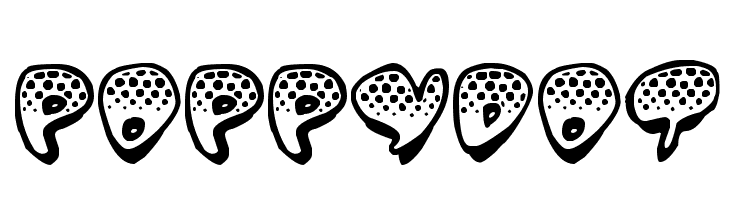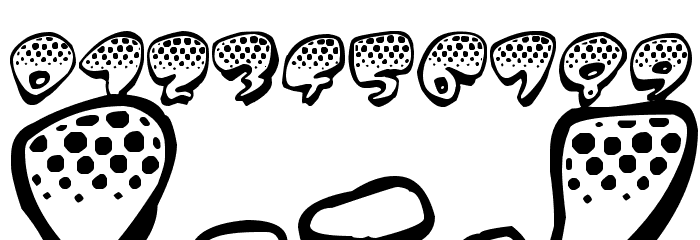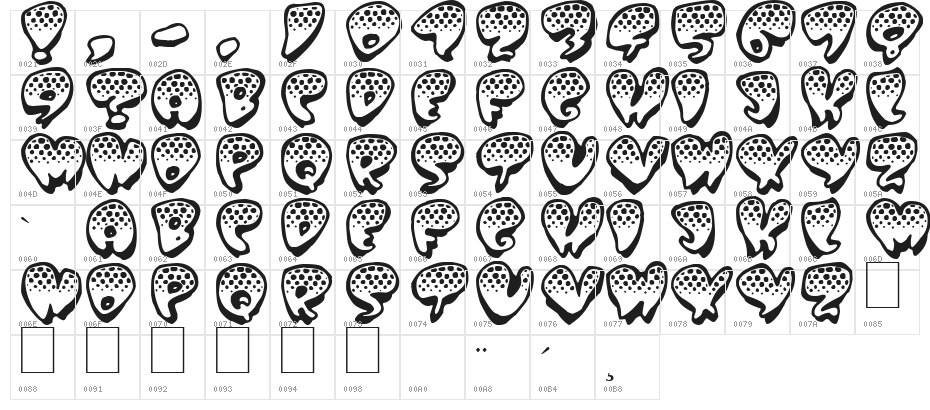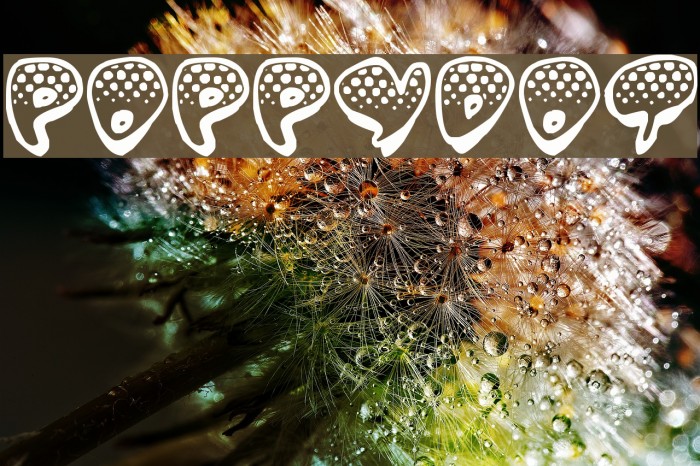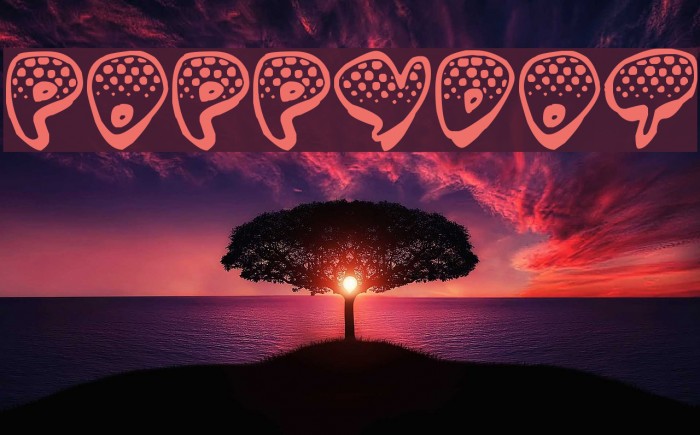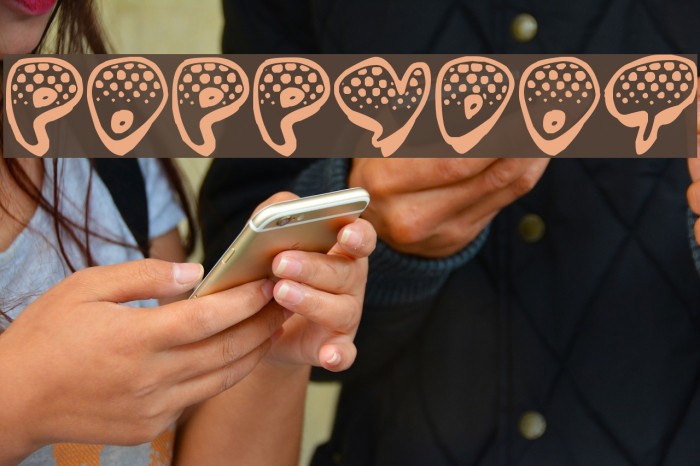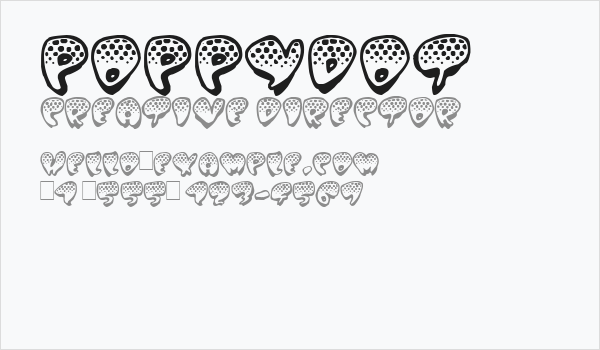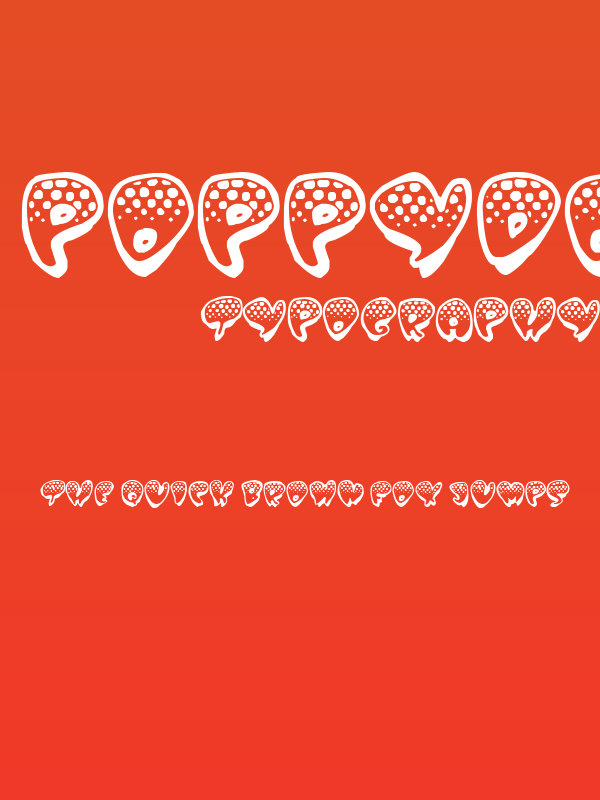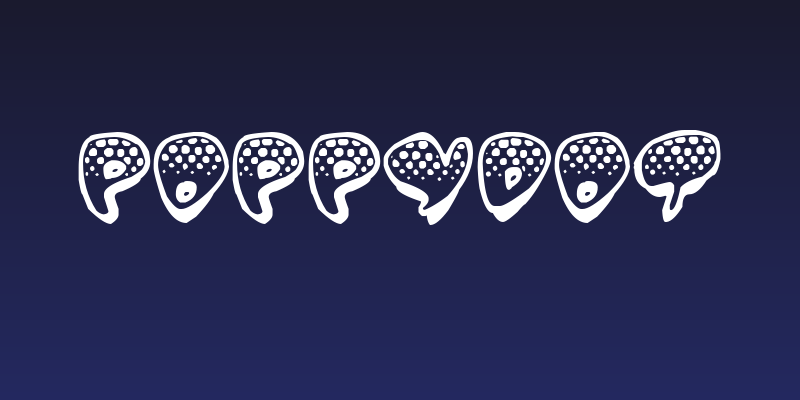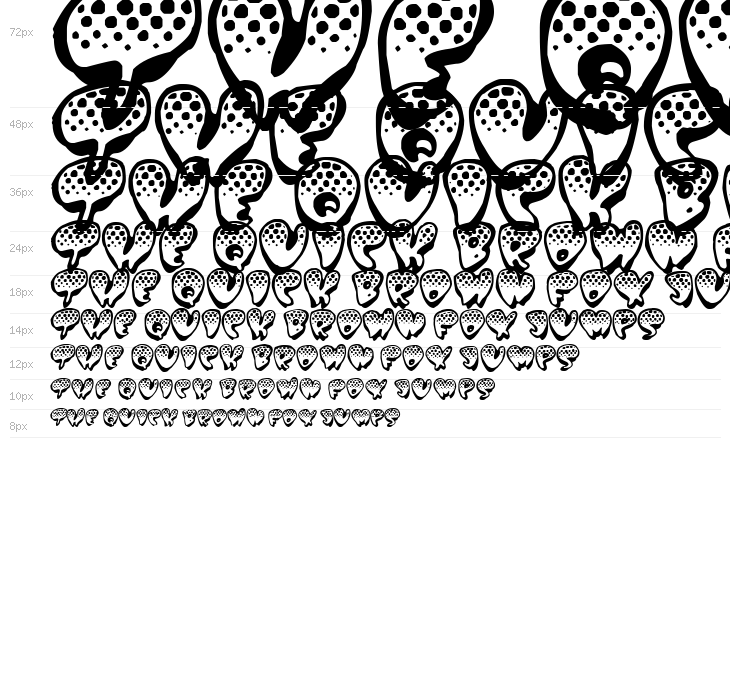
Poppydot Font
Poppydot Description
This playful and whimsical font features bold, rounded characters adorned with polka dots, creating a fun and lively appearance. The letters have a cartoonish style, with exaggerated curves and a bubbly aesthetic that makes them stand out. The font is highly decorative, with each character resembling a playful doodle, perfect for capturing attention and adding a touch of humor and creativity to any design. The polka dot pattern adds texture and visual interest, making it ideal for projects that require a unique and eye-catching typeface.